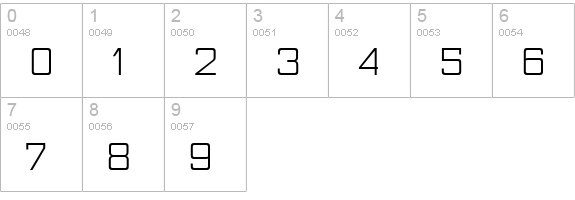
NesobriteBk-Regular Font Details
NesobriteBk-Regular is the standard, neutral variant in the NesobriteBk typeface family \xE2\x80\x94 well suited to general body text, paragraphs, and standard typographic work.
NesobriteBk-Regular font is a modern and versatile typeface that combines elegance with readability. With its clean lines and balanced proportions, this font is perfect for a wide range of design projects, from branding to editorial design. The sleek and contemporary look of NesobriteBk-Regular makes it a popular choice for both print and digital applications. What's even better is that NesobriteBk-Regular is available for free download at FontsMarket.com. This means you can easily access this stylish font and use it in your projects without any cost. Whether you're designing a website, creating a poster, or working on a logo, NesobriteBk-Regular will add a touch of sophistication to your work. Download it now and elevate your designs with this beautiful and free font.